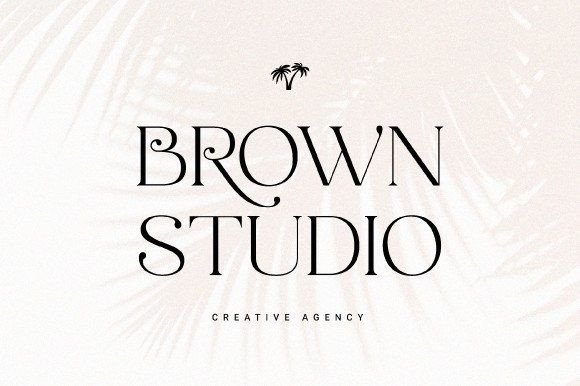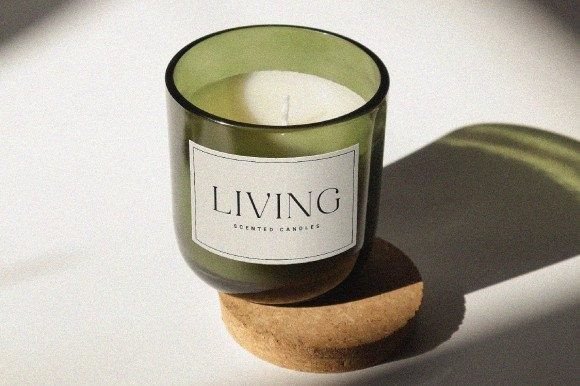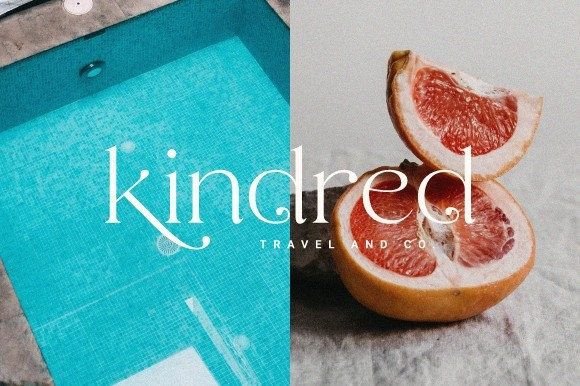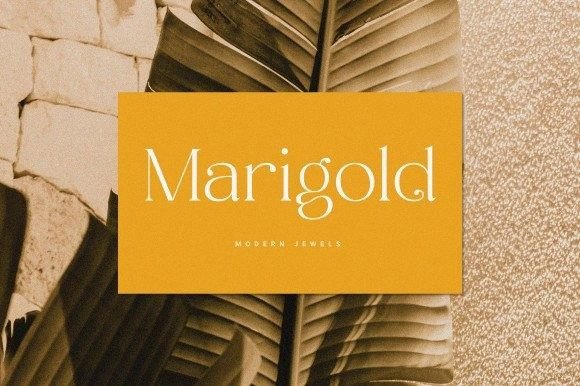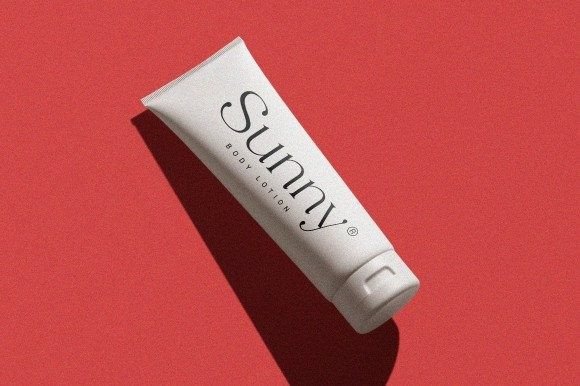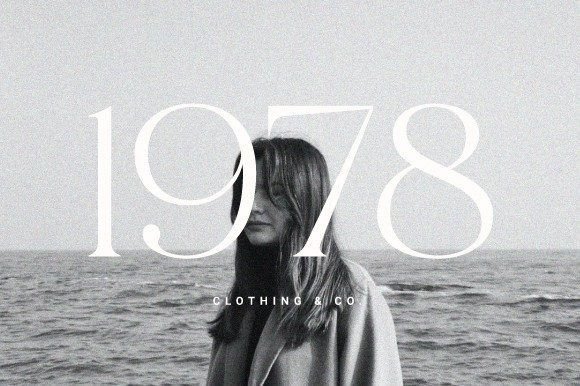
Introduction to Cherla Font
Cherla is a modern serif typeface with a pretty and unique touch.
Accompanied by several alternative characters to beautify Suitable for logo design and branding.
Key Features of Cherla Font